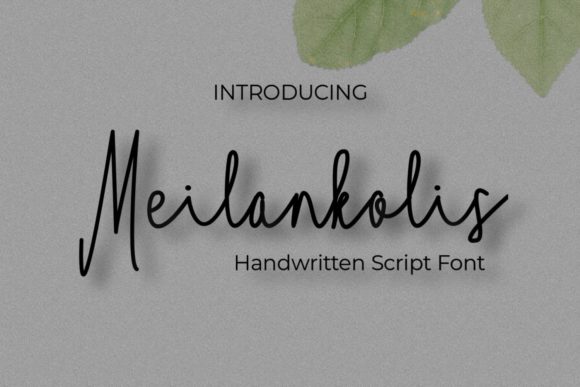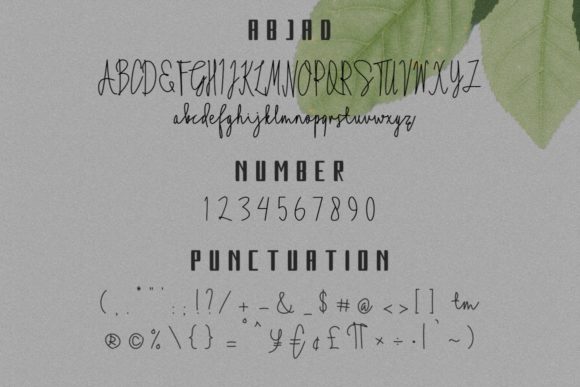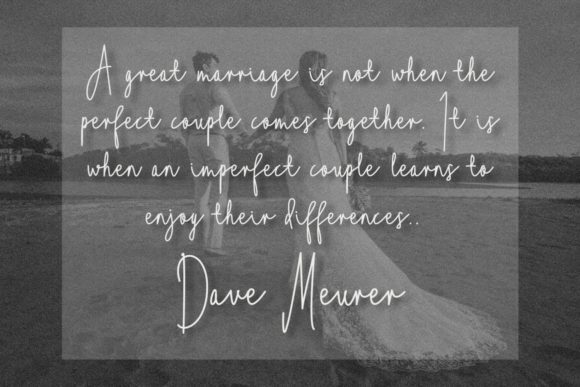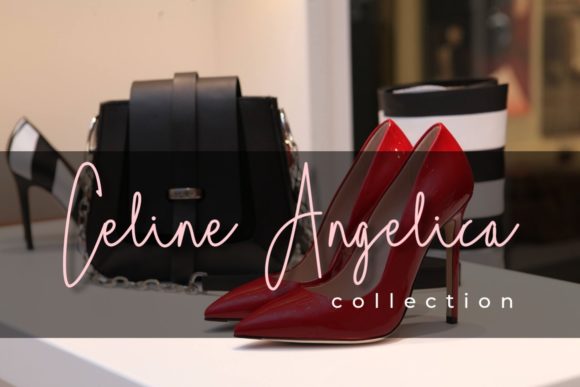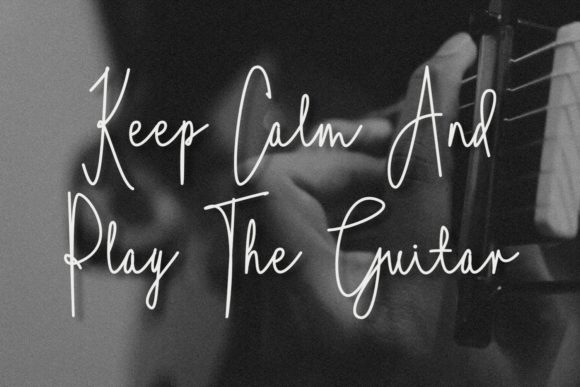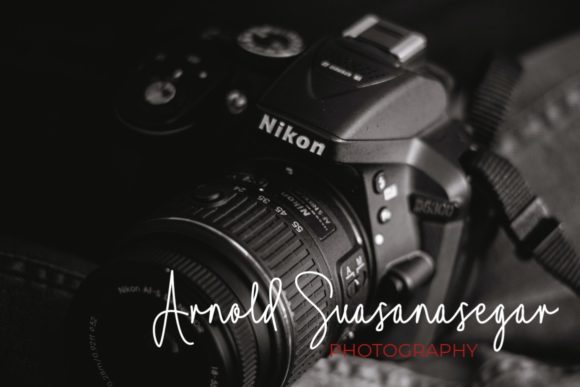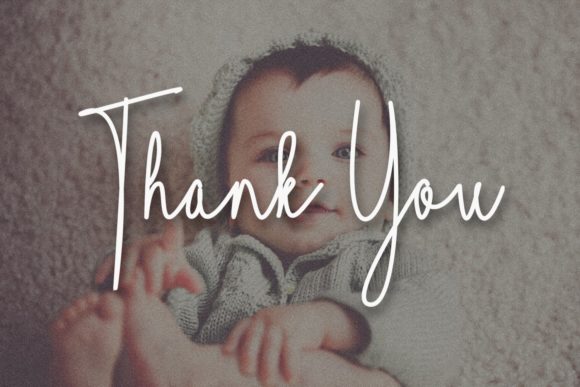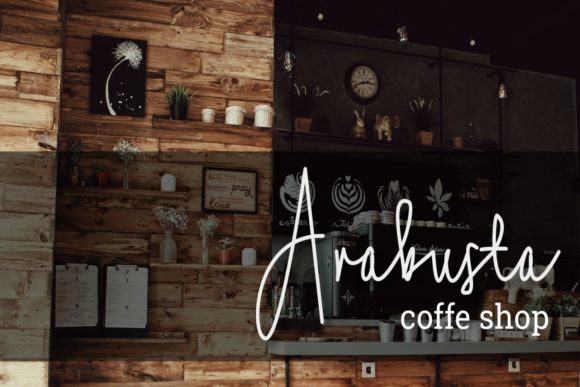
Meilankolis Font
About Meilankolis Font
Meilankolis is a thin lettered, cursive, and stylish script font that adds a touch of elegance to a variety of designs. With its personalized style, this font is especially well-suited for projects that require a unique and sophisticated aesthetic, such as wedding invitations, thank you cards, greeting cards, logos, and more.
The thin letterforms of Meilankolis bring a delicate and refined look to your designs. The graceful curves and intricate details create a sense of elegance and sophistication. Whether you’re working on wedding stationery, personalized cards, or branding materials, Meilankolis adds a touch of beauty that captures attention.
The cursive nature of Meilankolis adds a sense of fluidity and movement to your designs. The connecting letterforms create a seamless flow, giving your text a stylish and cohesive appearance. This script font’s handwritten look adds a personal touch, making your designs feel warm and inviting.
Meilankolis shines in projects that require a personalized style. Its stylish script nature brings a sense of uniqueness and exclusivity to your designs. Whether you’re creating wedding invitations, thank you cards, or any other customized project, Meilankolis adds a personalized and memorable element that resonates with your audience.
The versatility of Meilankolis allows it to be applied to a wide range of design needs. Its thin lettering and stylish script style make it suitable for various applications, including wedding invitations, greeting cards, logos, and more. Meilankolis adds a refined and sophisticated touch that elevates the visual appeal of your designs.
Incorporating Meilankolis into your designs brings a personalized and stylish flair. Its thin lettering, cursive style, and elegance make your designs truly captivating. Meilankolis adds a touch of sophistication to your projects, making them stand out and leave a lasting impression.
In summary, Meilankolis is a thin lettered, cursive, and stylish script font that enhances a variety of designs requiring a personalized style. Its elegance and unique aesthetic make it suitable for wedding invitations, thank you cards, greeting cards, logos, and more. Embrace the beauty of Meilankolis and let it bring a touch of sophistication to your designs, creating memorable and visually stunning compositions.